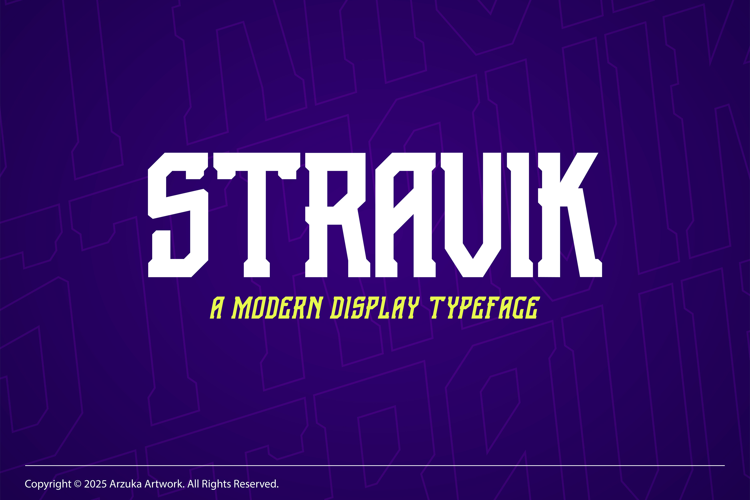
Stravik - Modern Display Font
STRAVIK – Bold Sport Display Typeface
STRAVIK is a modern, bold display typeface designed for high-impact visual branding. Its sharp angles, strong geometry, and aggressive letterforms make it perfect for sports themes, esports identities, automotive branding, gaming posters, and headline designs that demand attention.
The geometry and powerful stance of the Stravik font make it the essential choice for e-sports branding, video game titles, athletic apparel, gym posters, action movie graphics, and any project that requires a modern, muscular, and high-octane aesthetic.
Crafted with precision, STRAVIK blends futuristic aesthetics with clean readability, allowing designers to create logos and titles that feel powerful, energetic, and professional.
This font is built to stand out—no matter the size or background.
Ideal For:
• Esports Team Identity & Mascot Logos
• Sports Posters & Tournament Branding
• Automotive Logos & Decals
• Tech & Gaming Title Design
• YouTube Thumbnail Typography
• Merchandise & Apparel Graphics